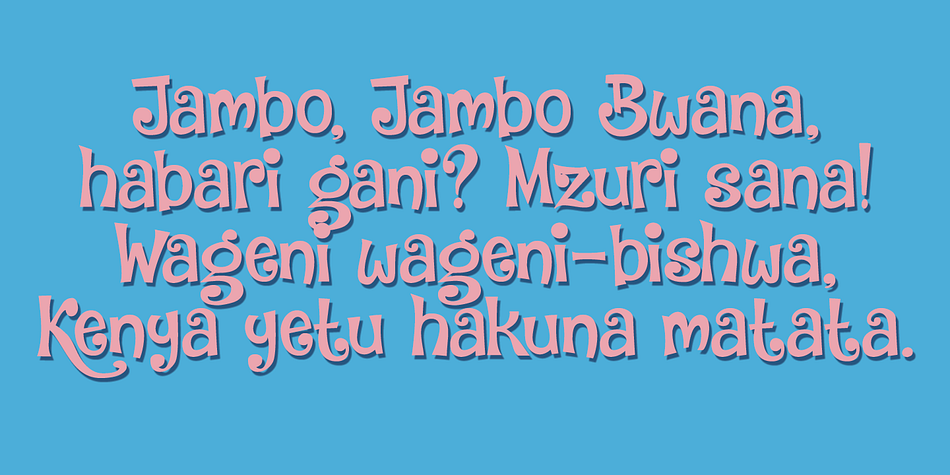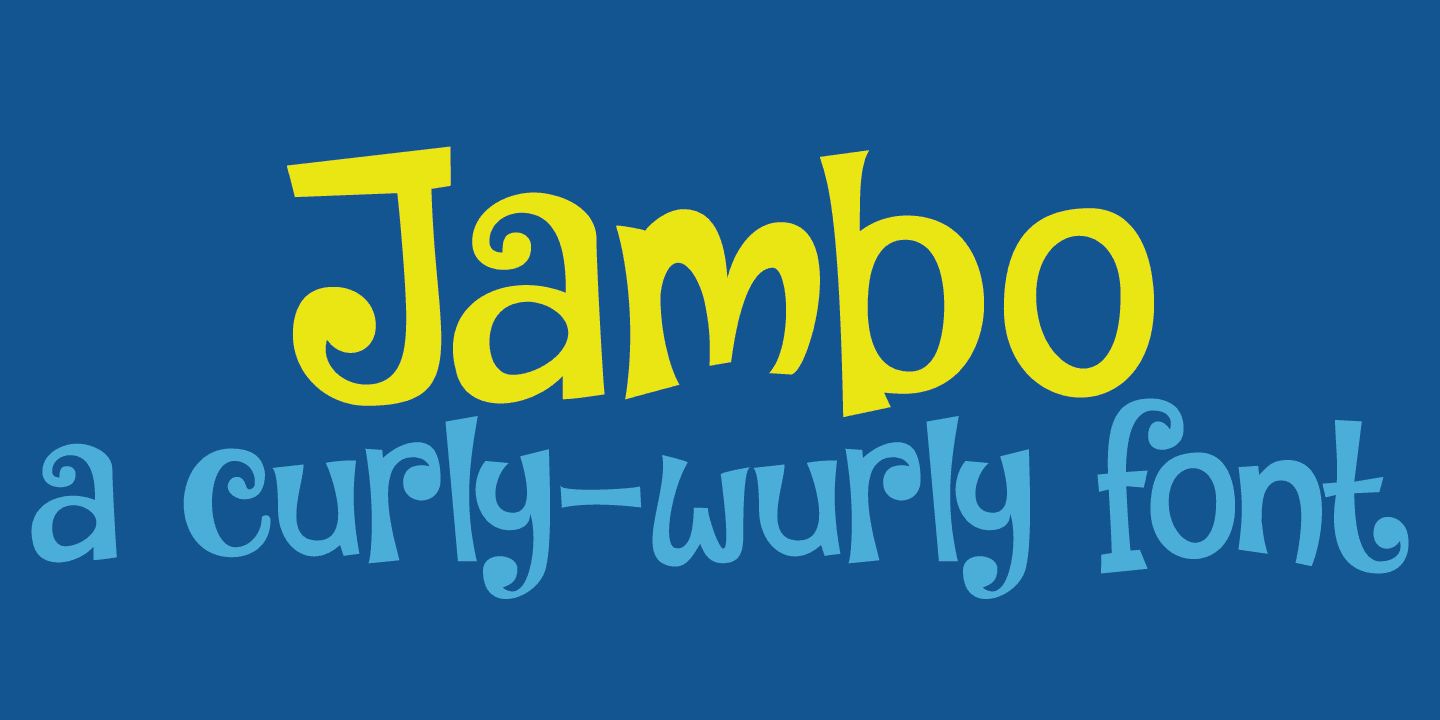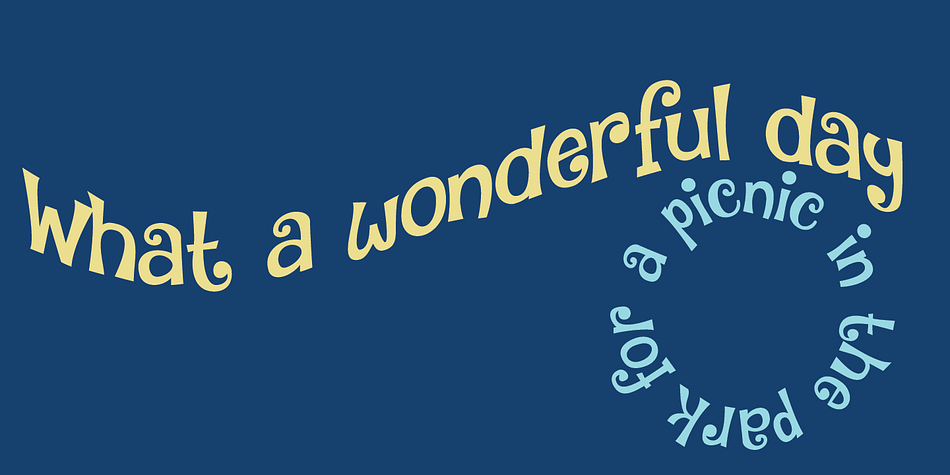
Jambo is a retro, art nouveau and kids font published by Hanoded.
Jambo (‘hello’ in Swahili) is a cute and bouncy typeface. I guess you can say that it is didone-ish in nature, but comic would also be an apt description. Jambo has generous curves, swirls and curls and comes with a jumbo amount of diacritics.